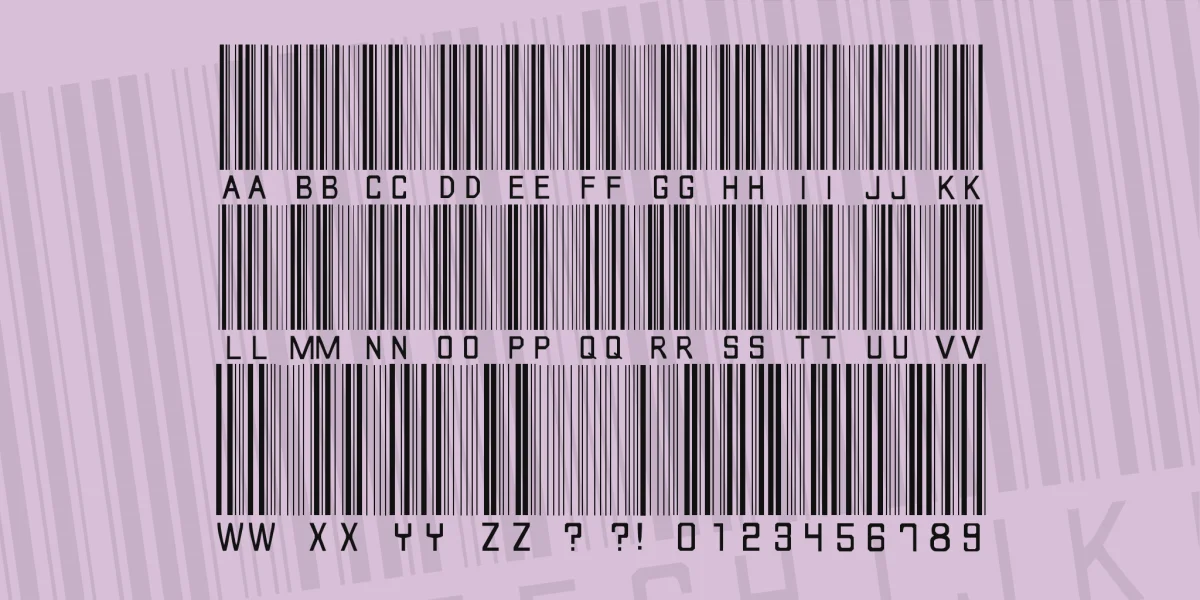
Please don't try to use this font with a barcode reader - it doesn't work! This font is just deco, otherwise I wouldn't give it away as Donation Ware.